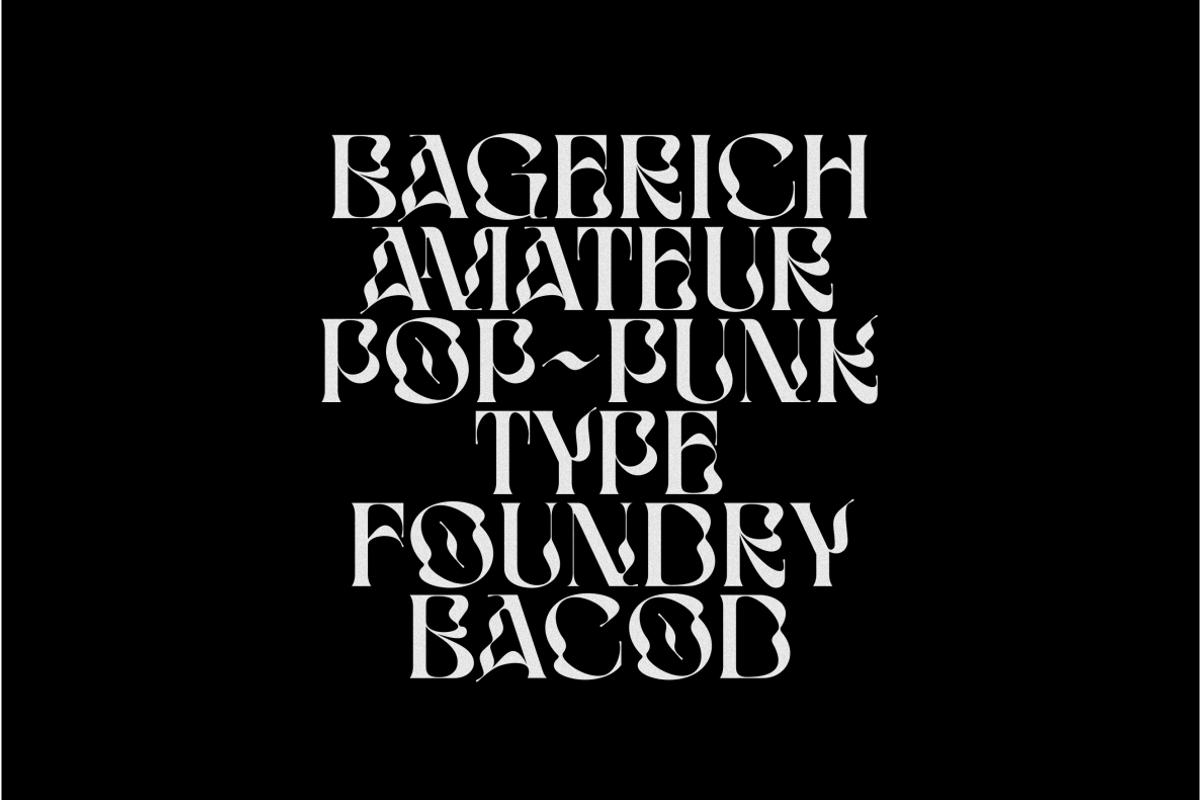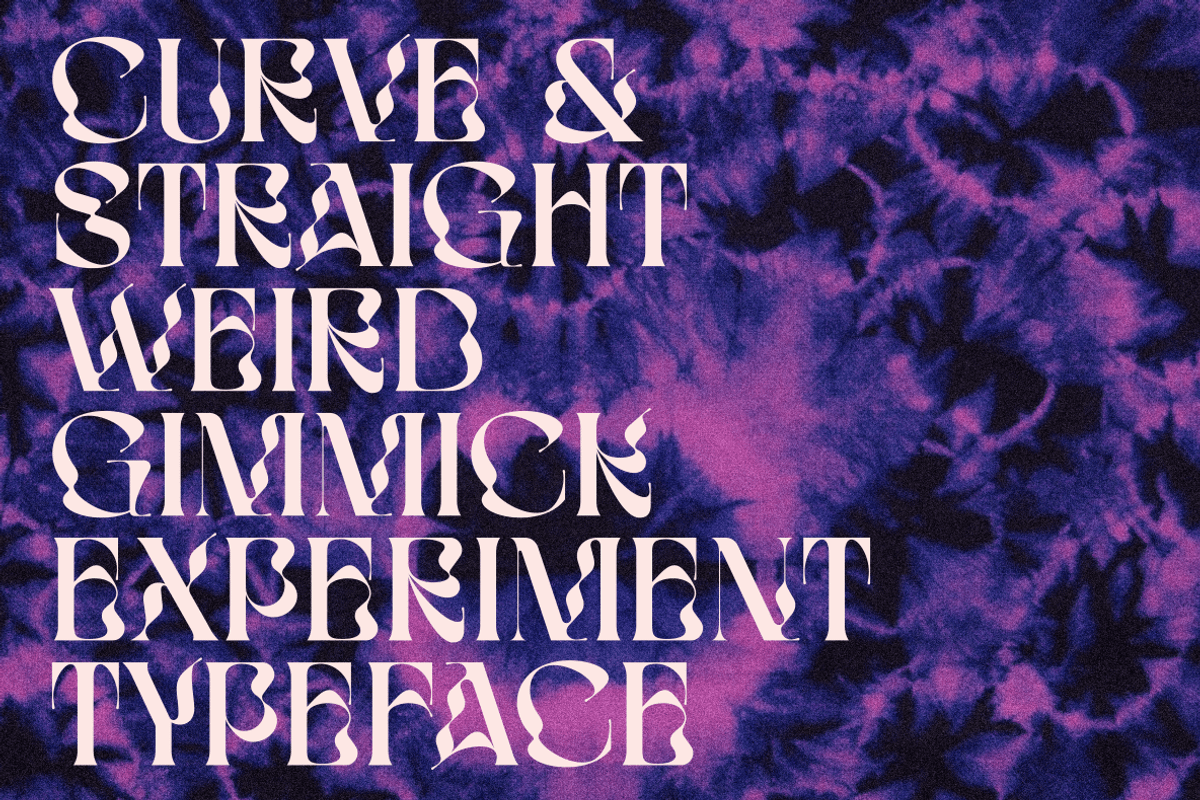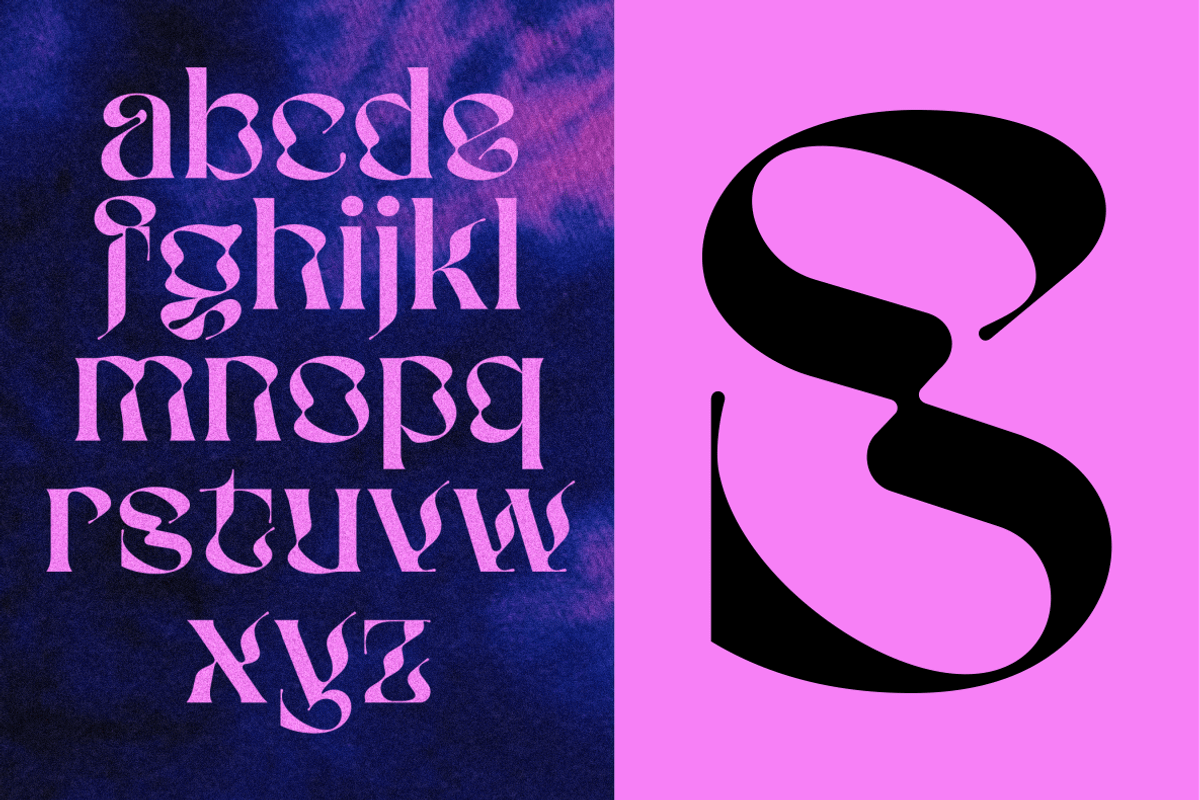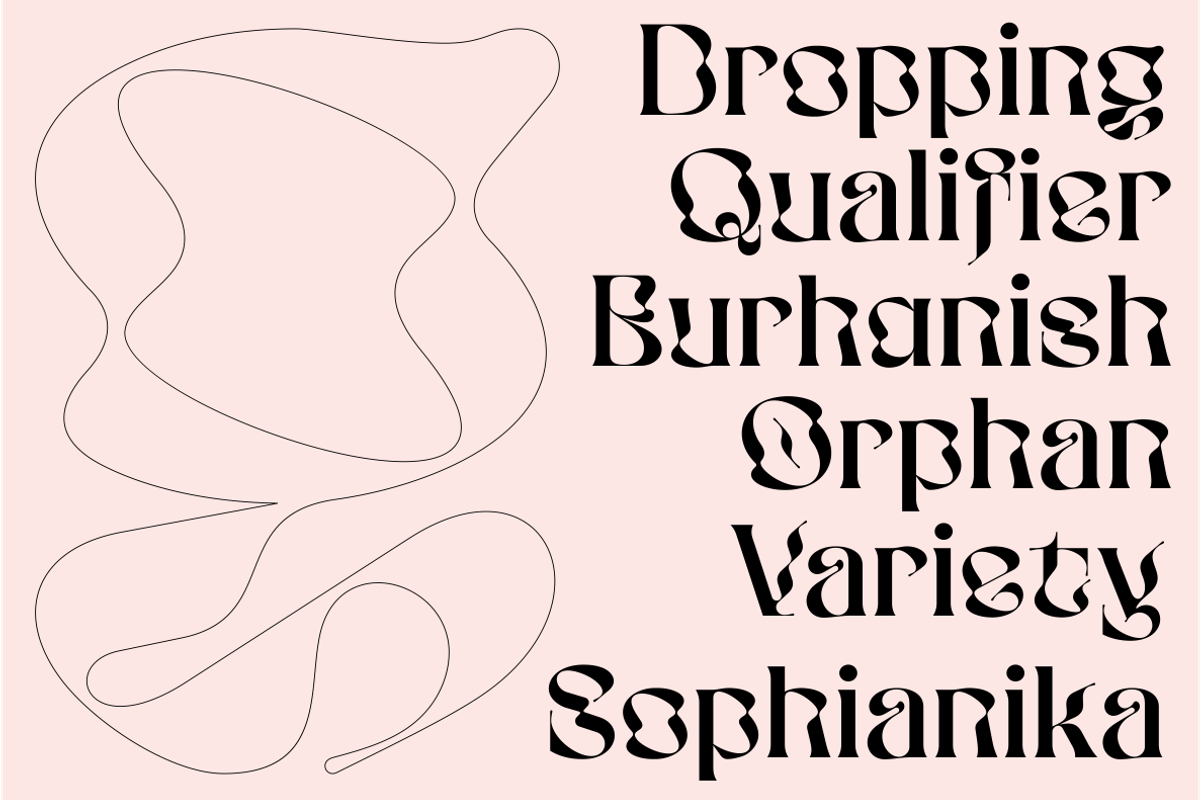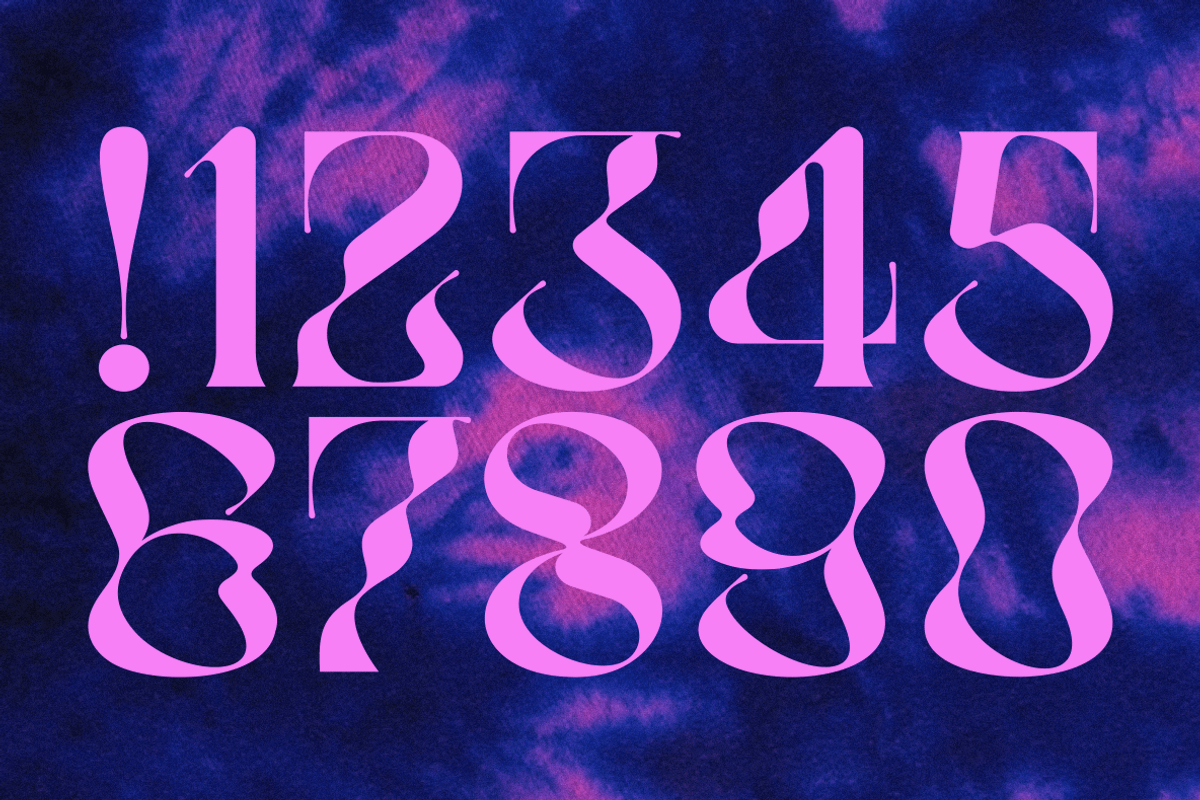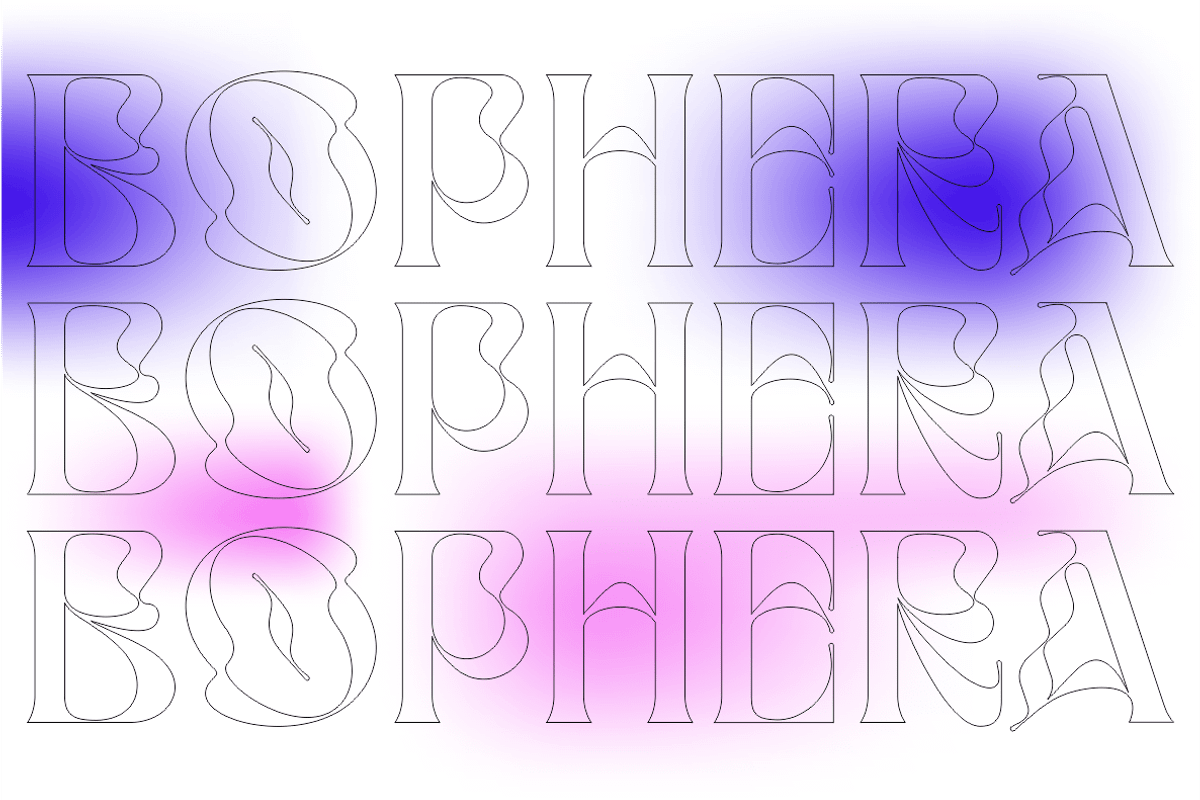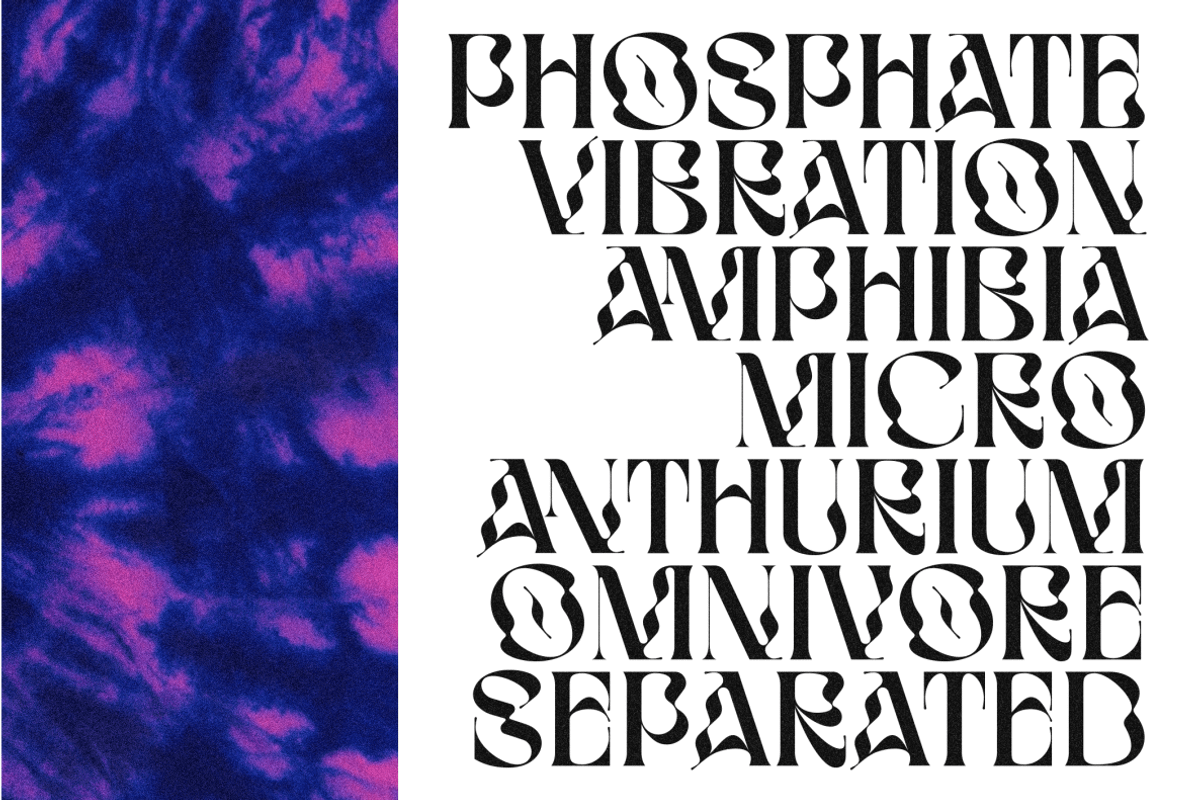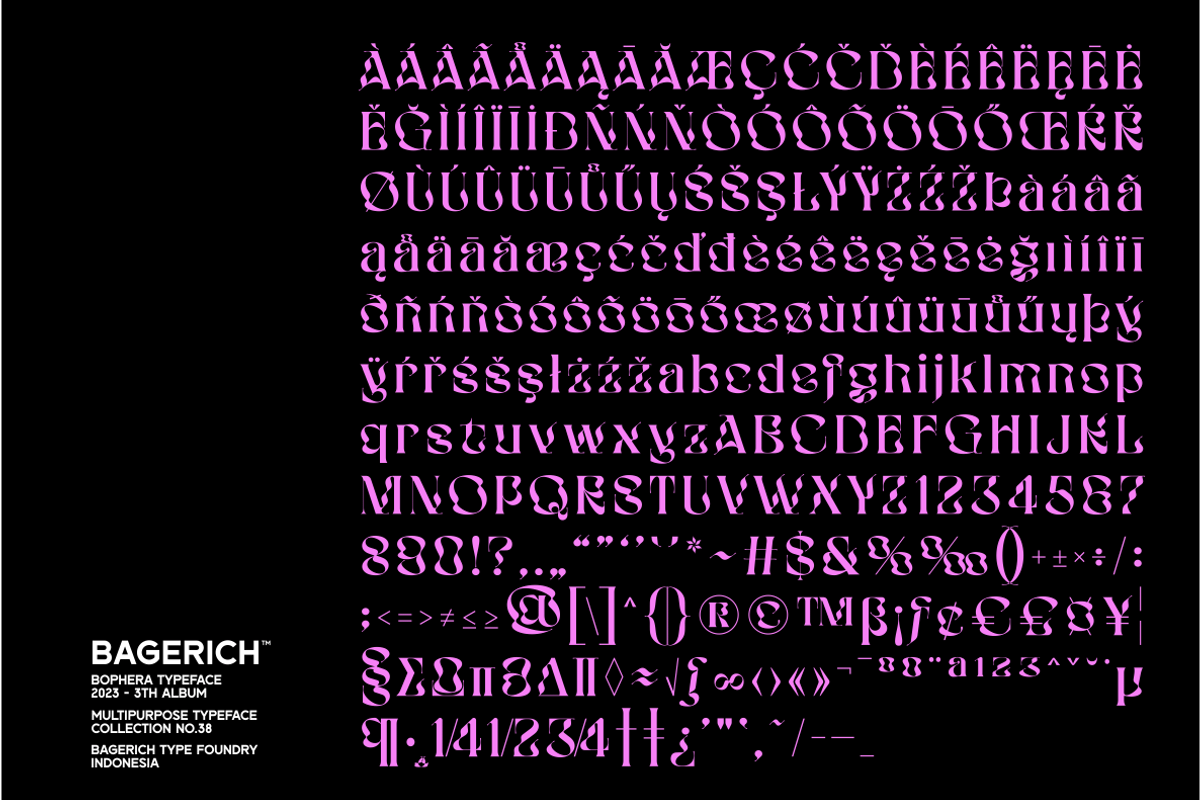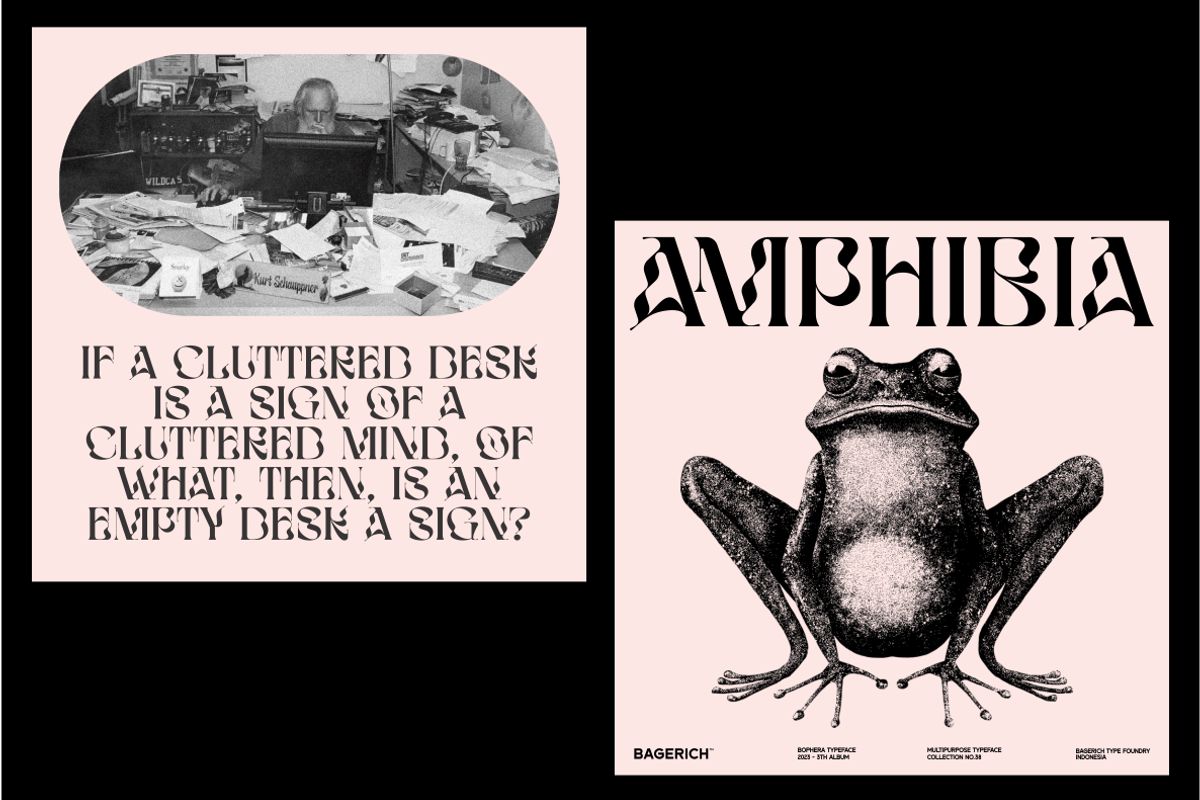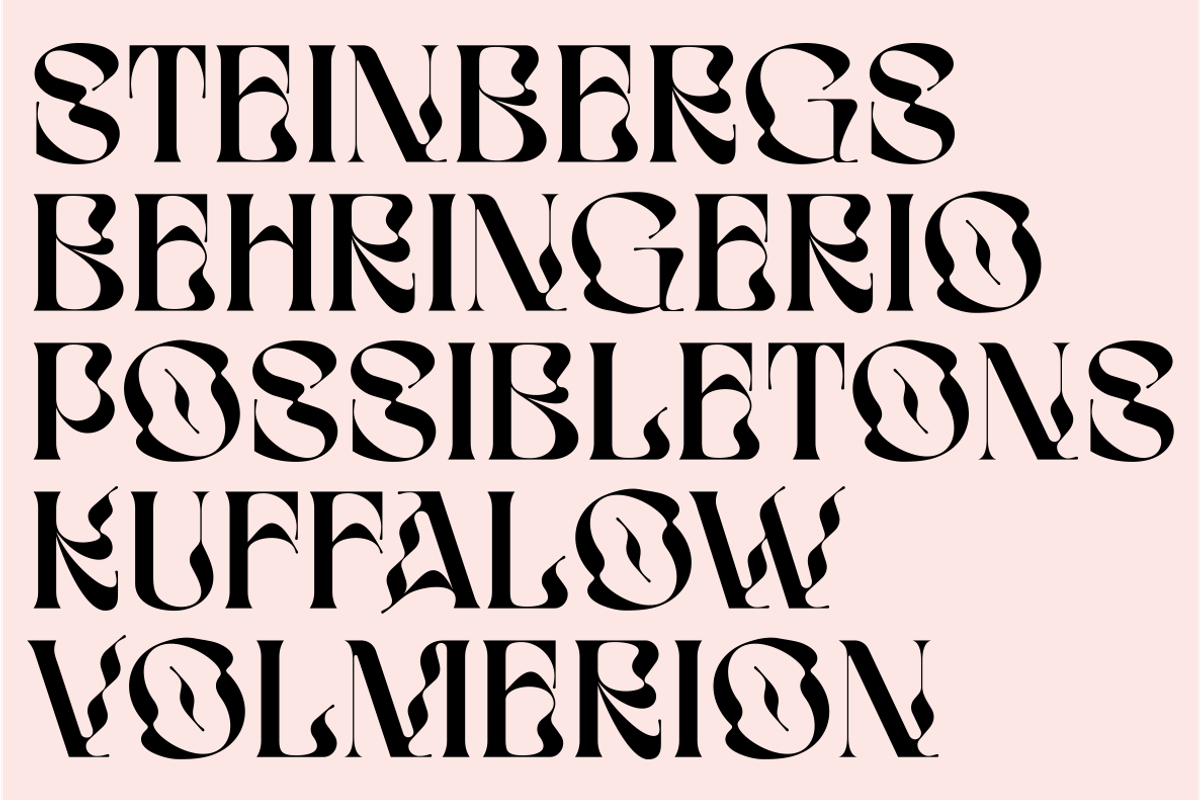
BOPHERA
BOPHERA is font designed by Reza Rasenda & Riska Candra Dewi, with design choices inspired by the Art Nouveau era. BOPHERA comes with stylistic, alternates, ligatures and supports multilingual languages. Create unique & beautiful logotype, use it as an elegant solution for your next magazine layout, or choose BOPHERA for any graphics that require a sleek look with a elegant flair.